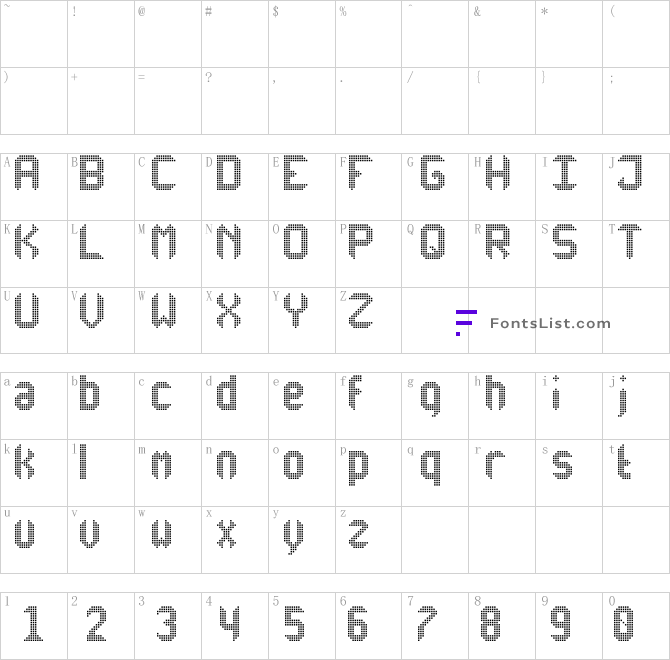
- Font Name:Another X Display tfb
Another-X-Display-tfb.ttf is a very beautiful artistic font, Another-X-Display-tfb.ttf is widely used in the design and printing of various books and pictures,Another-X-Display-tfb.ttf has a strong visual impact,Another-X-Display-tfb.ttf is a commonly used font in newspapers, magazines and books, and is used in posters, e-commerce Poster design, store design, logo design, font design and other fields.Another-X-Display-tfb.